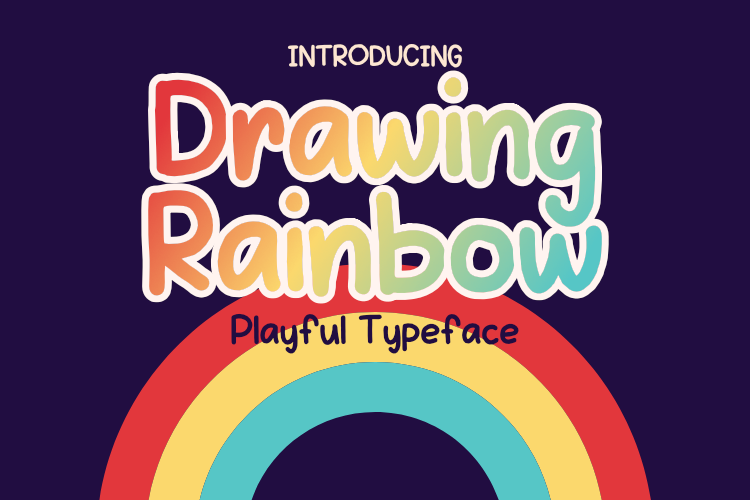
Drawing Rainbow Font
Drawing Rainbow is a cheerful display font with a rainbow concept that brings joy !. This font is made in the glyph style of its original thick lines, handcrafted to create a truly natural art. This font is perfect for logos, branding, products, book covers, children's books, learning books and much more.